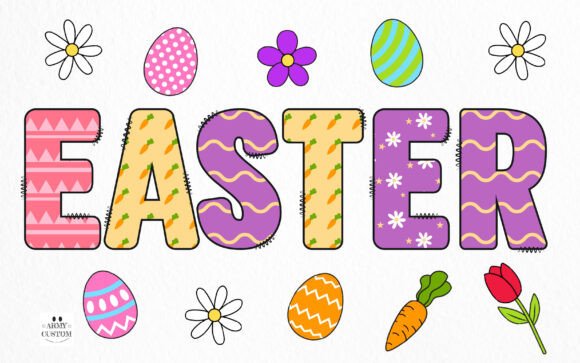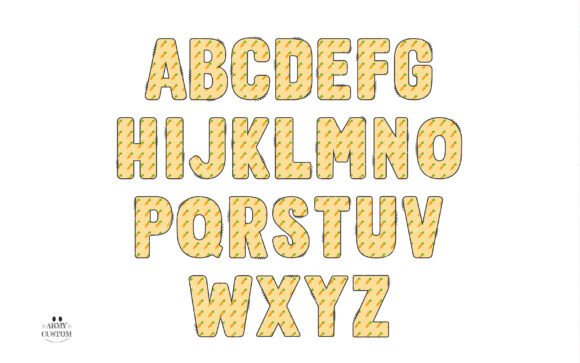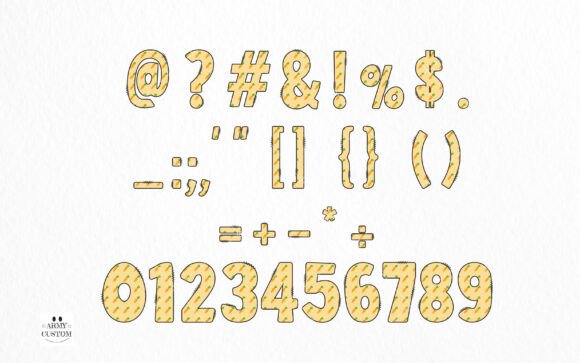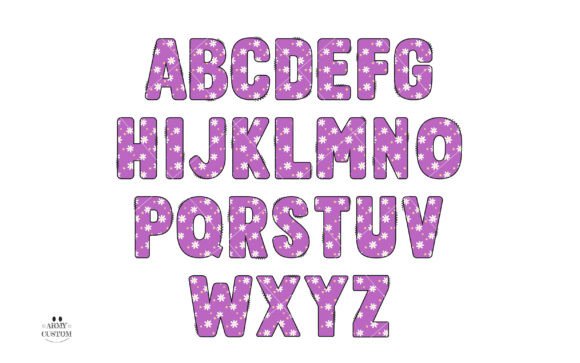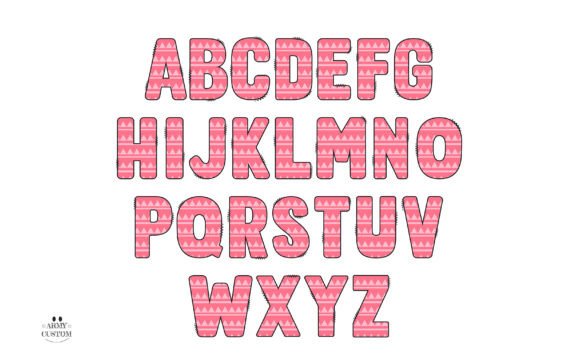
Unlock the Joy of Easter with the Easter Bundle Font
As a designer, I’ve had my fair share of moments where I’ve struggled to find the perfect font for a project. But one Easter-themed project stands out in my mind. I was tasked with creating a whimsical Easter egg hunt flyer for a client’s kids’ party. I spent hours scouring the internet for a font that captured the playful, festive spirit of Easter. That’s when I stumbled upon the “Easter Font Bundle No.15”. It was love at first sight! 🎉
A Personal Review of the Easter Font Bundle
I’m excited to share my honest review of the Easter Font Bundle No.15. Here’s what I love about it:
- ✨ Vibrant and playful aesthetic: The font embodies the joyful exhilaration of Spring and Easter celebrations, making it perfect for designs that require a lively touch.
- ✅ Ease of use: The font is incredibly easy to use, even for those who are new to designing with OpenType features and glyphs.
- 💫 Creative possibilities: The Easter Font Bundle No.15 is not just a font, but an artistic tool that opens up a world of creative possibilities.
While the Easter Font Bundle No.15 is amazing, there are a few small quirks to be aware of:
- 🤔 Limited character set: Some users have noted that the font has a limited character set, which may not be ideal for designs that require a wide range of characters.
- ⚠️ Occasional kerning issues: A few users have reported occasional kerning issues when using the font in certain design applications.
The Designer Inspiration Behind the Easter Font Bundle
The Easter Font Bundle No.15 was designed by a talented team of designers who wanted to capture the joyful spirit of Easter. The font is inspired by traditional Easter decorations, spring flowers, and the happy, playful atmosphere of Easter celebrations. The designers aimed to create a font that would bring a touch of whimsy and fun to designs, while also conveying the sense of renewal and celebration that comes with the Easter season.
| What is the Easter Font Bundle No.15? | The Easter Font Bundle No.15 is a collection of fonts designed to capture the playful, festive spirit of Easter. |
| What type of designs is the Easter Font Bundle No.15 best suited for? | The Easter Font Bundle No.15 is best suited for designs that require a playful, festive aesthetic, such as Easter-themed party decorations, holiday cards, and spring-inspired designs. |